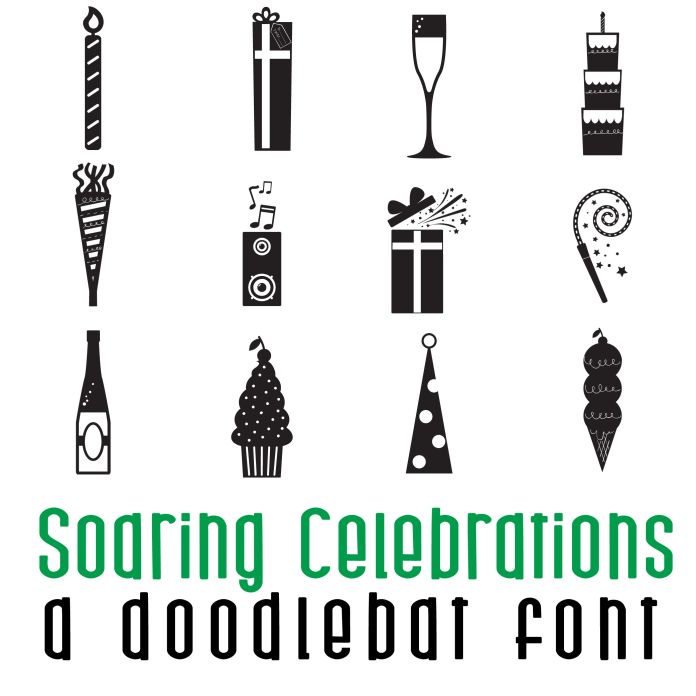
Soaring Celebrations Doodlebat Font
This doodlebat font features 26 gift and party images perfect for cards, crafts, gifts, decor, scrapbook pages, planner stickers, and more!